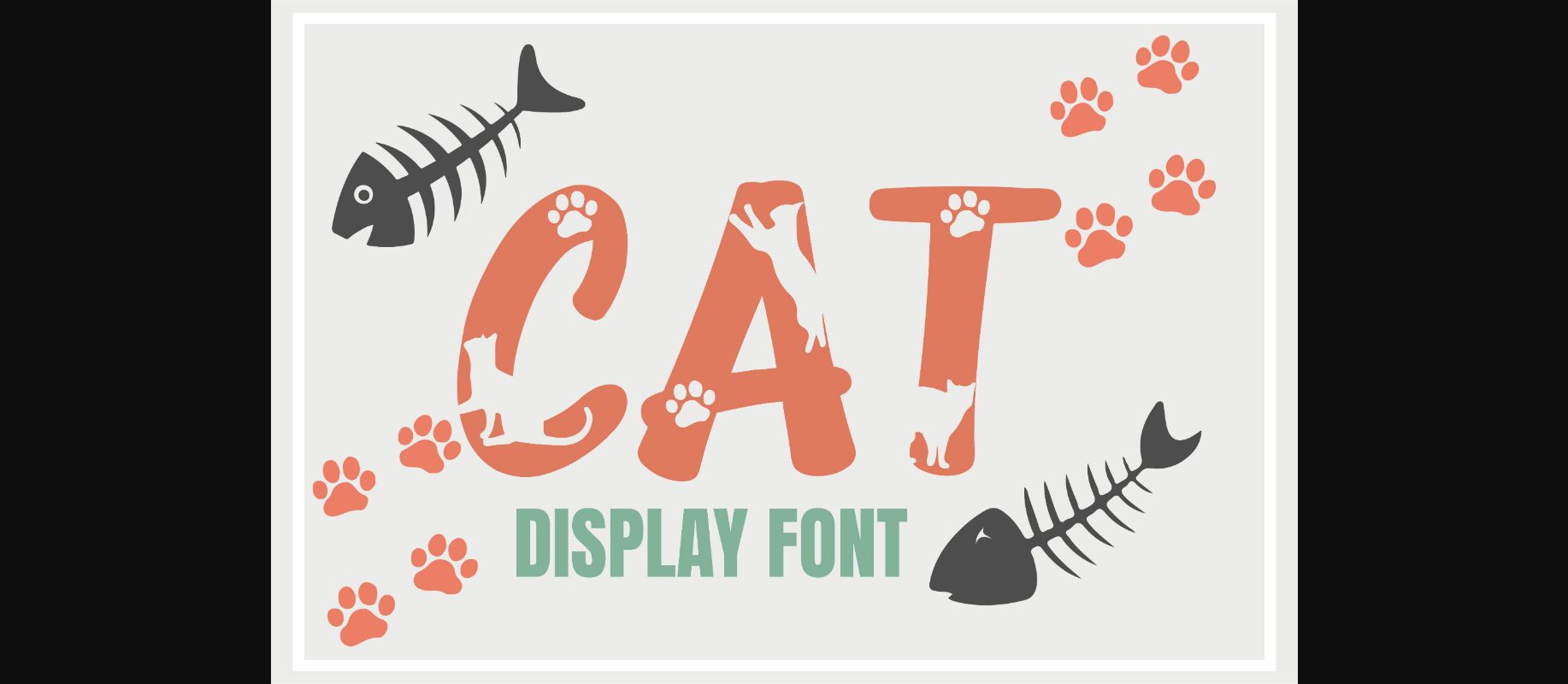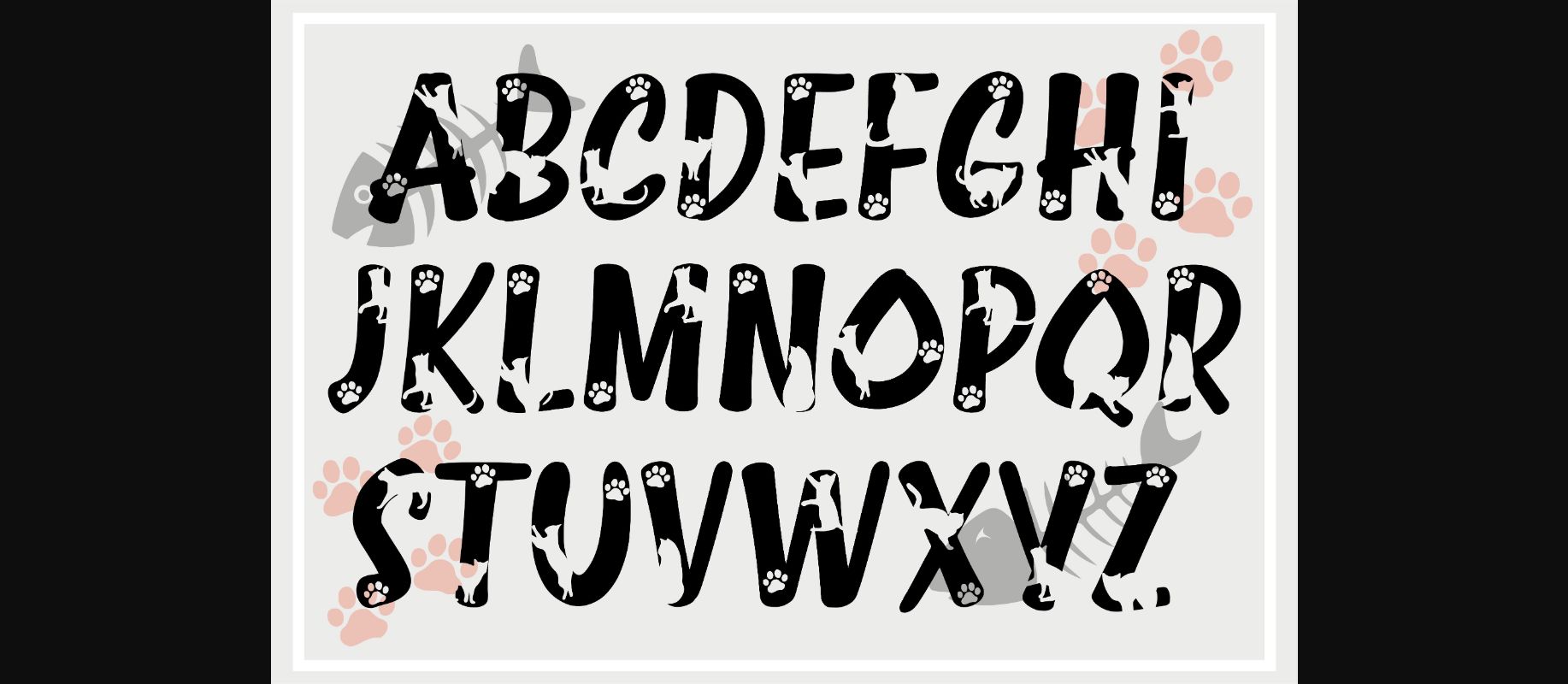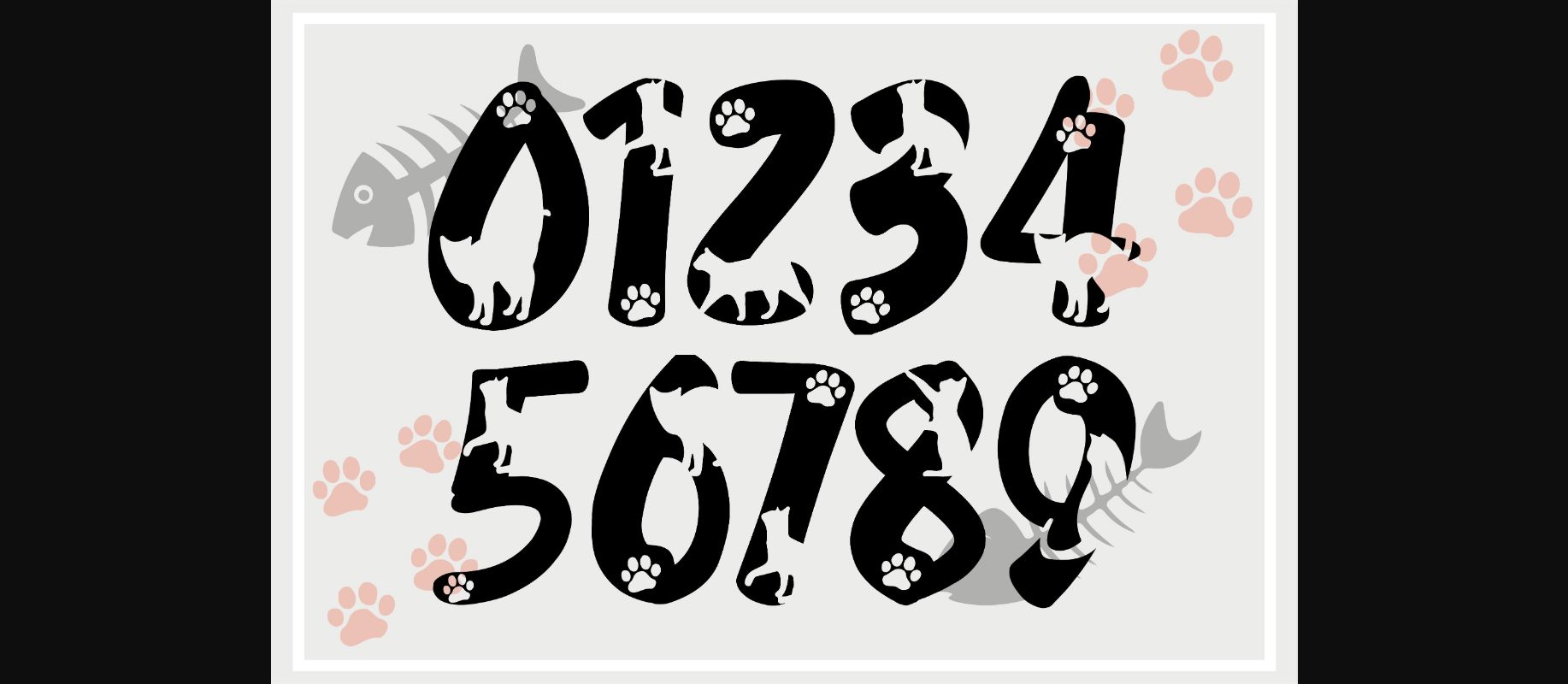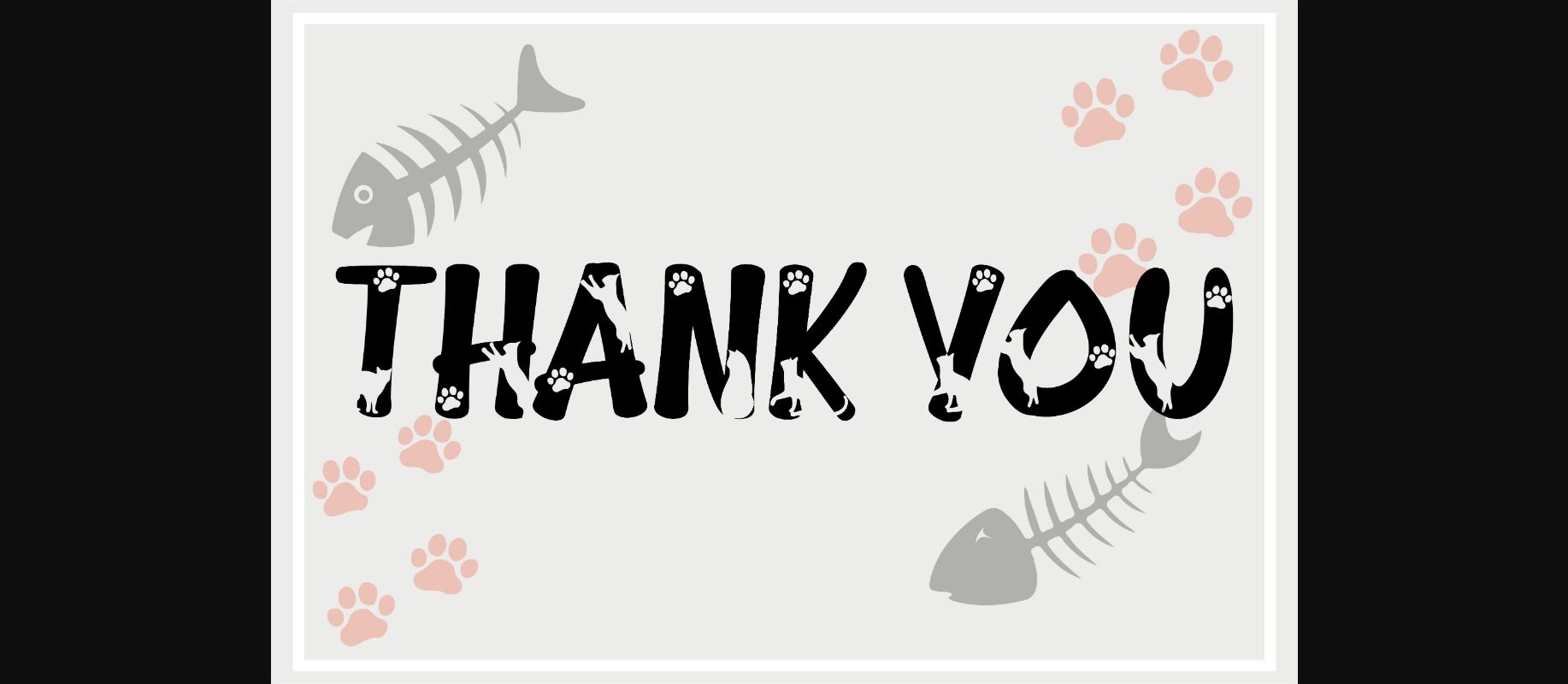
Cat Font
About Cat Font
Cat is a thick-lettered and fun-looking decorative font. It is perfect for children-themed designs, especially when combined with bright colors.